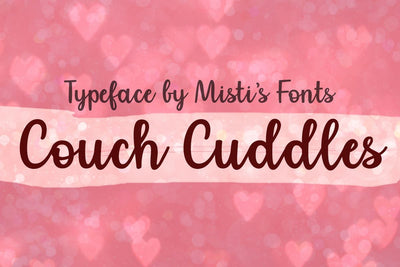
Couch Cuddles
Couch Cuddles is a sweet and cozy cursive font, perfect for Valentine’s Day! With its smooth, flowing letters and playful charm, it adds a warm, handwritten touch to love notes, greeting cards, and heartfelt designs. Snuggle up and create something adorable! ❤️